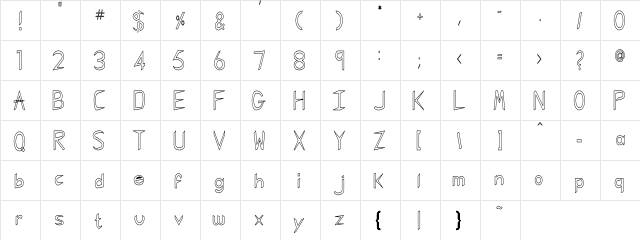
CharlieChanHC Regular
Design Context for CharlieChanHC Typeface
CharlieChanHC is a composed and adaptable typeface that performs quietly and consistently across a wide range of design contexts.
Pro Tip: Use CharlieChanHC in both headline and body roles to test its range before committing to a single application.